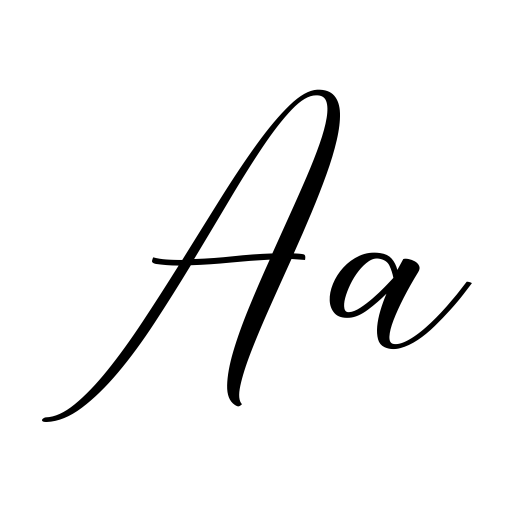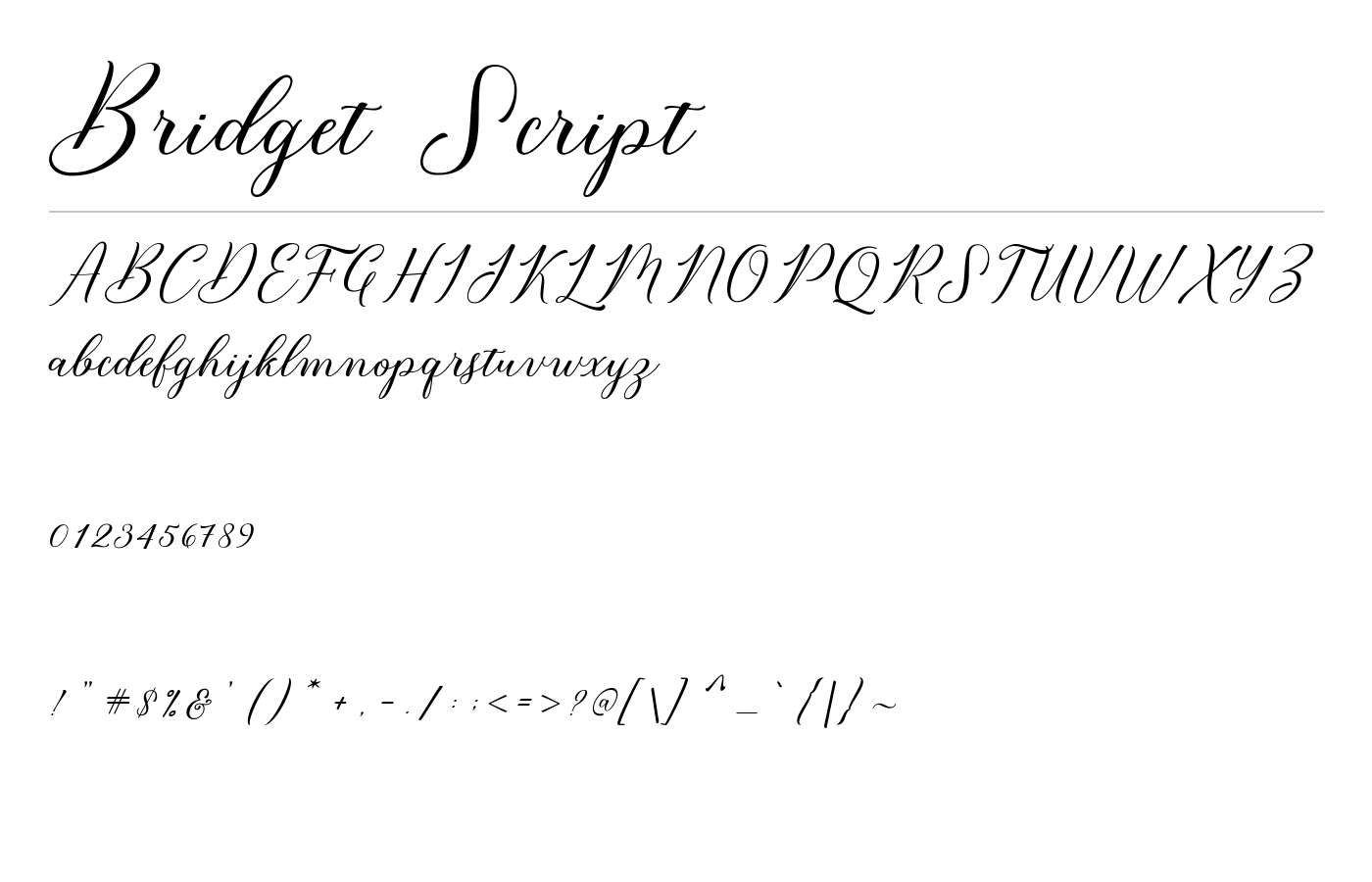
Bridget Script is an elegant, flowing script font characterized by its slender, graceful strokes and classic calligraphic style. It features delicate, slightly varied line weights with smooth curves, making it perfect for sophisticated branding, wedding invitations, and refined editorial designs that seek a personal, stylish touch. This font conveys a sense of romance and timeless beauty, ideal for projects needing an elegant and handwritten feel.
Bridget Script Font
About Bridget Script Font
| Font family | Bridget Script Font |
| Designer | Kurniadi Saputra |